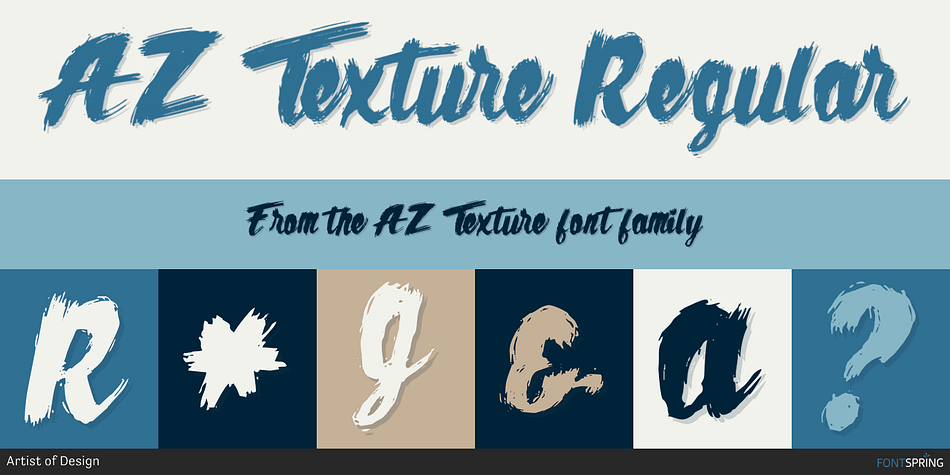
AZ Texture Regular
AZ Texture is a grunge and script font published by Artist of Design.
AZ Texture was inspired from a need to develop an easily changeable worn headline with a painted look.
This font was designed for use as a display headline or sub headline.